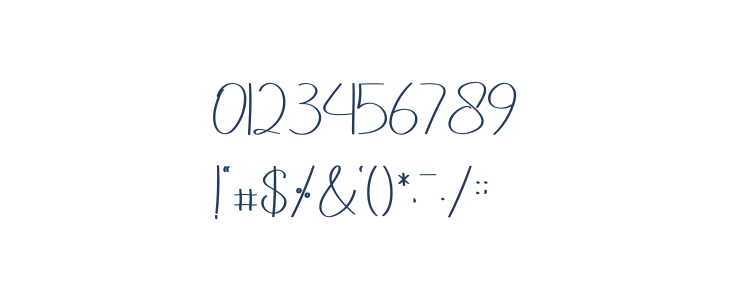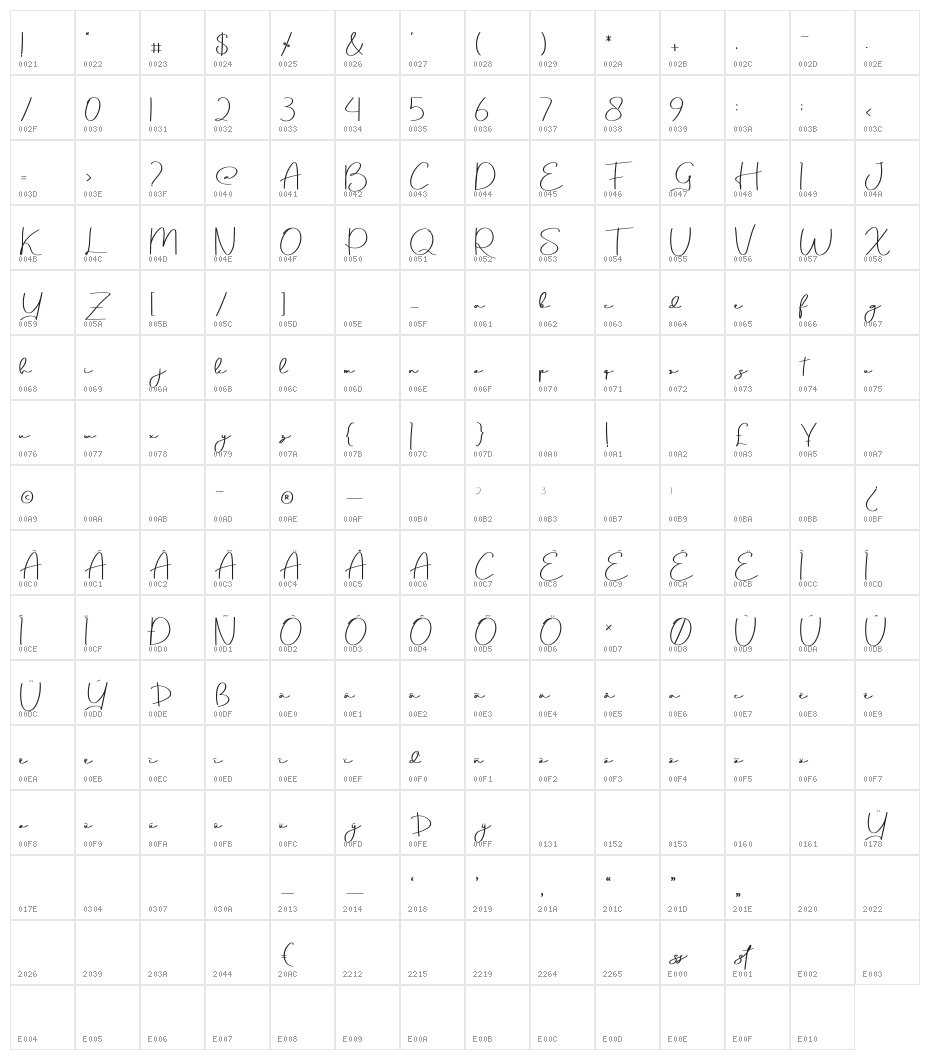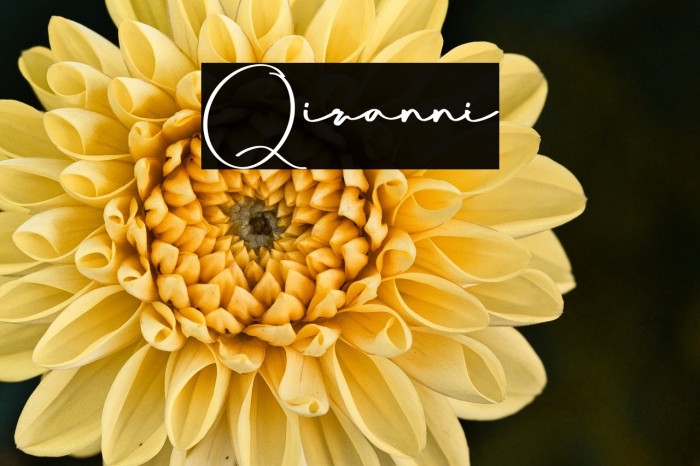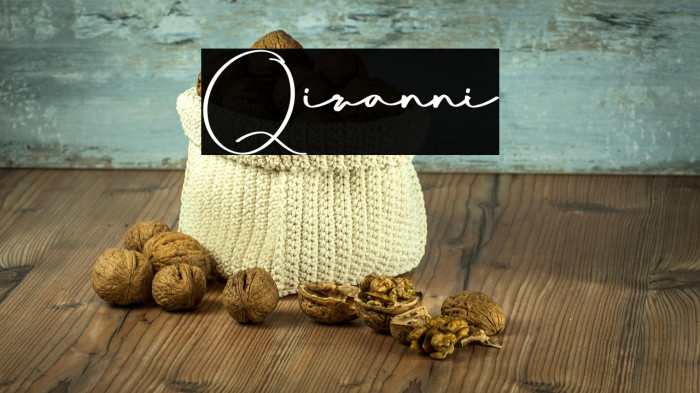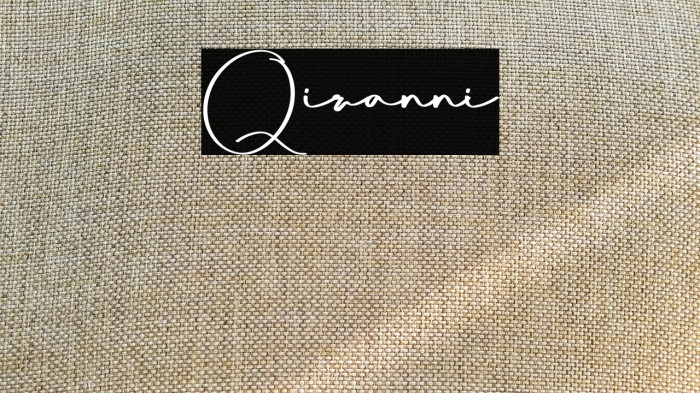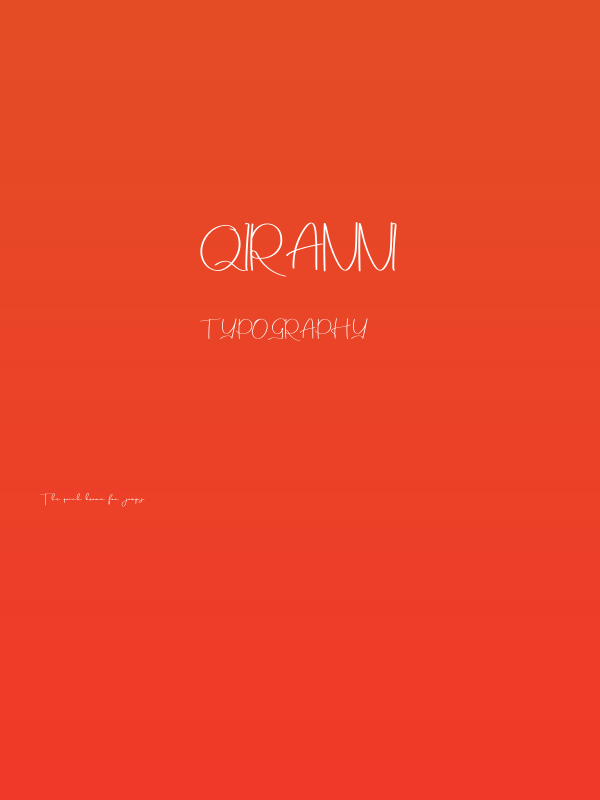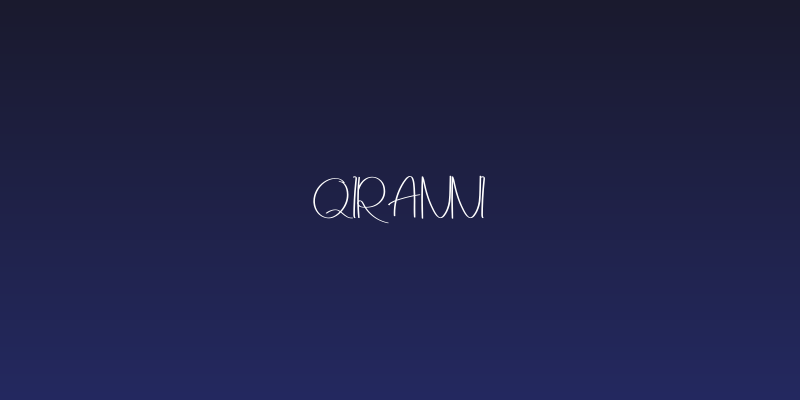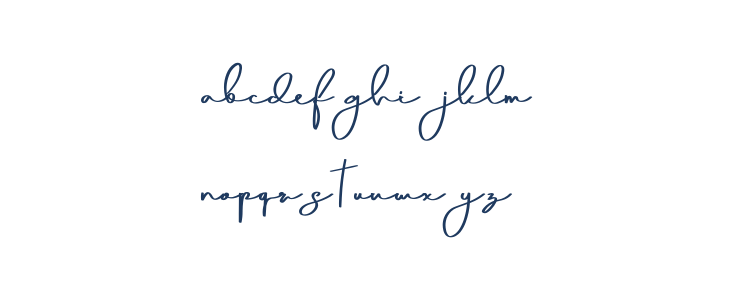
Qiranni Font
Qiranni Description
This font features a playful and elegant handwritten style, characterized by its fluid and flowing letterforms. The uppercase letters are tall and slightly narrow, with a whimsical touch that adds a sense of movement and personality. The lowercase letters are more connected, resembling cursive handwriting, which enhances the font's overall charm. The numerals maintain the same playful aesthetic, ensuring consistency across all characters. Special characters are designed with the same attention to detail, making them seamlessly integrate with the rest of the font. This font's unique style makes it suitable for creative and artistic projects.
| Use Case | Logos, Invitations, Social Media |
| Proposed Projects | Ideal for wedding invitations, greeting cards, branding, and social media graphics. |